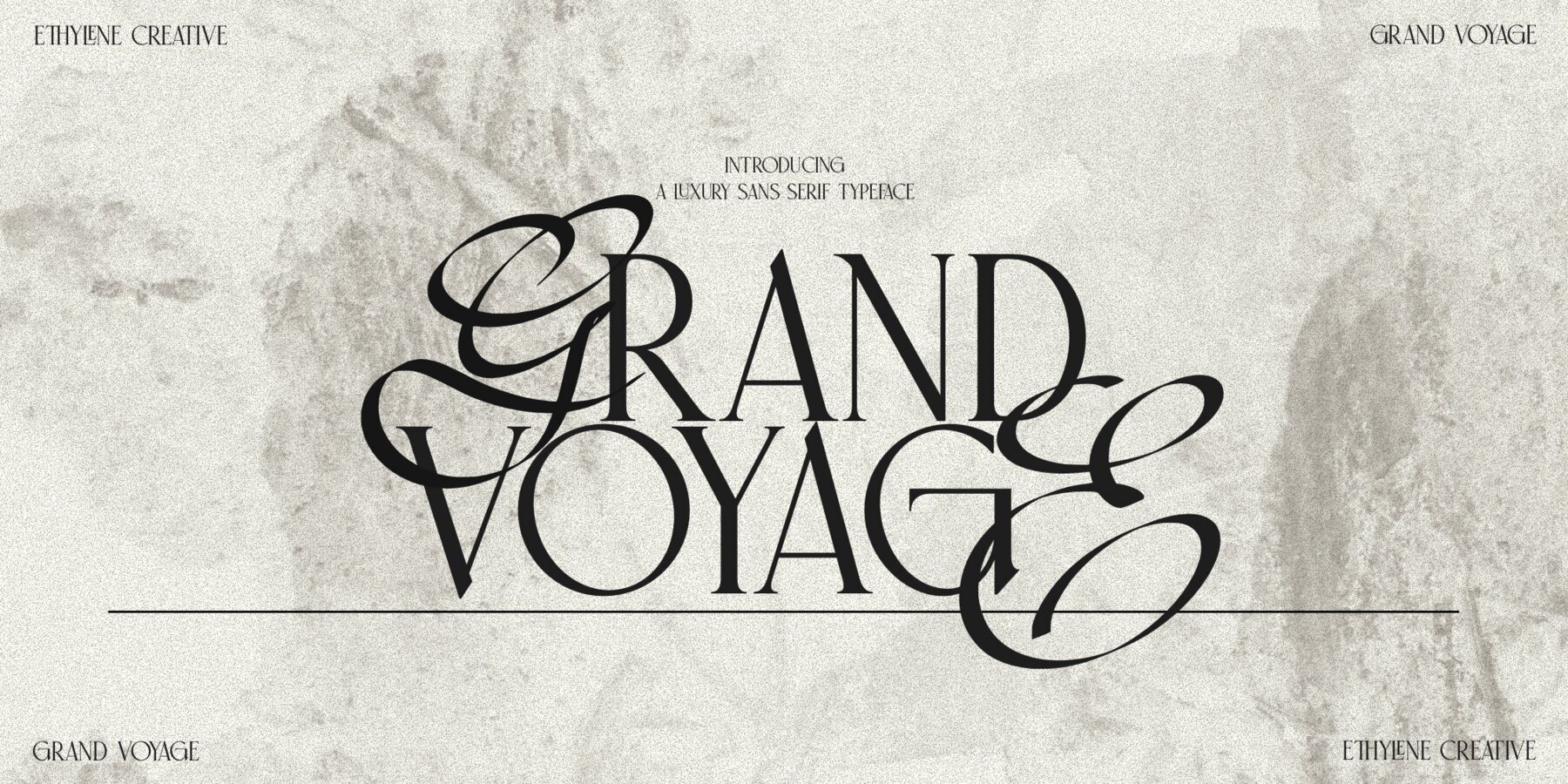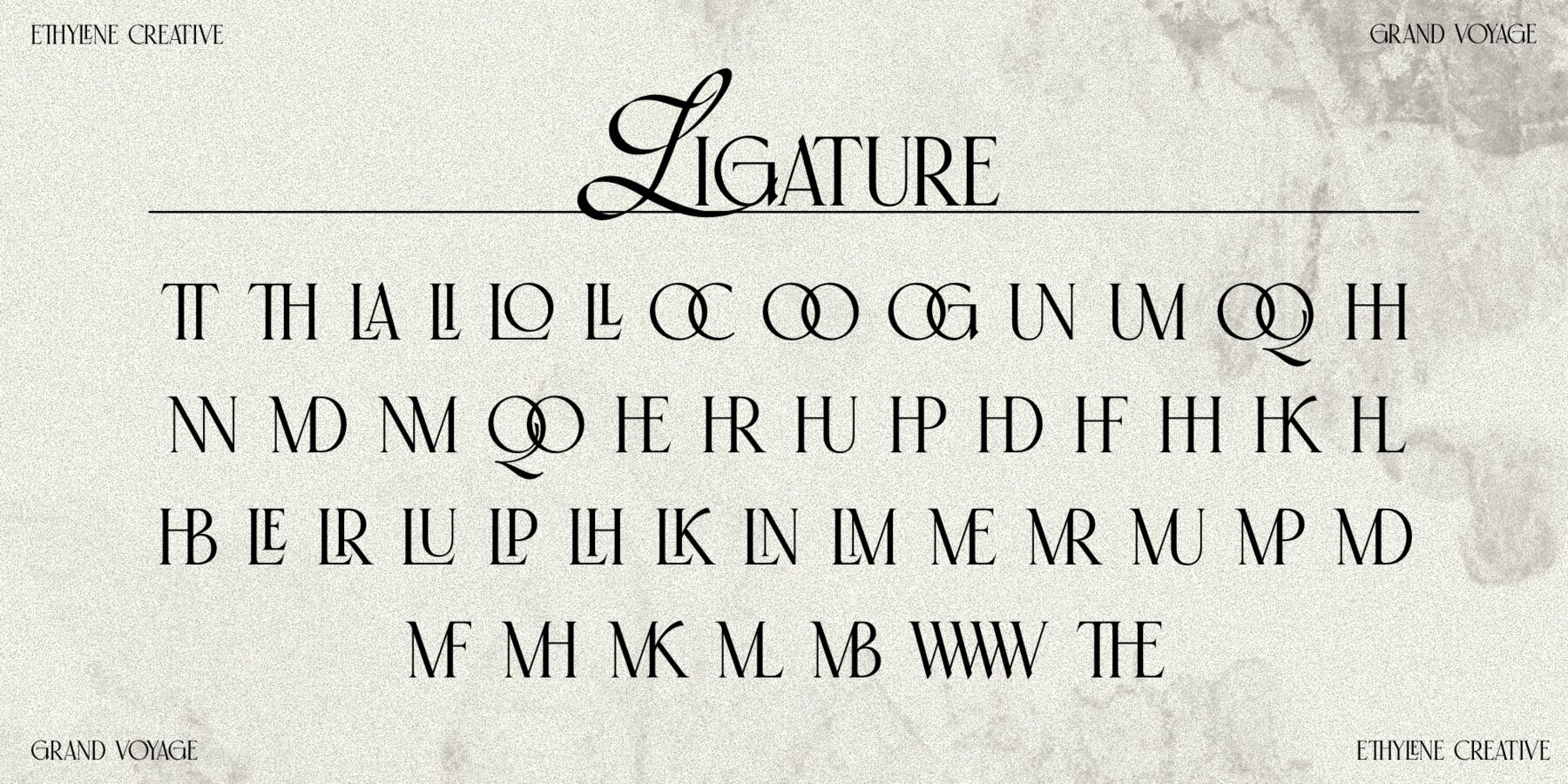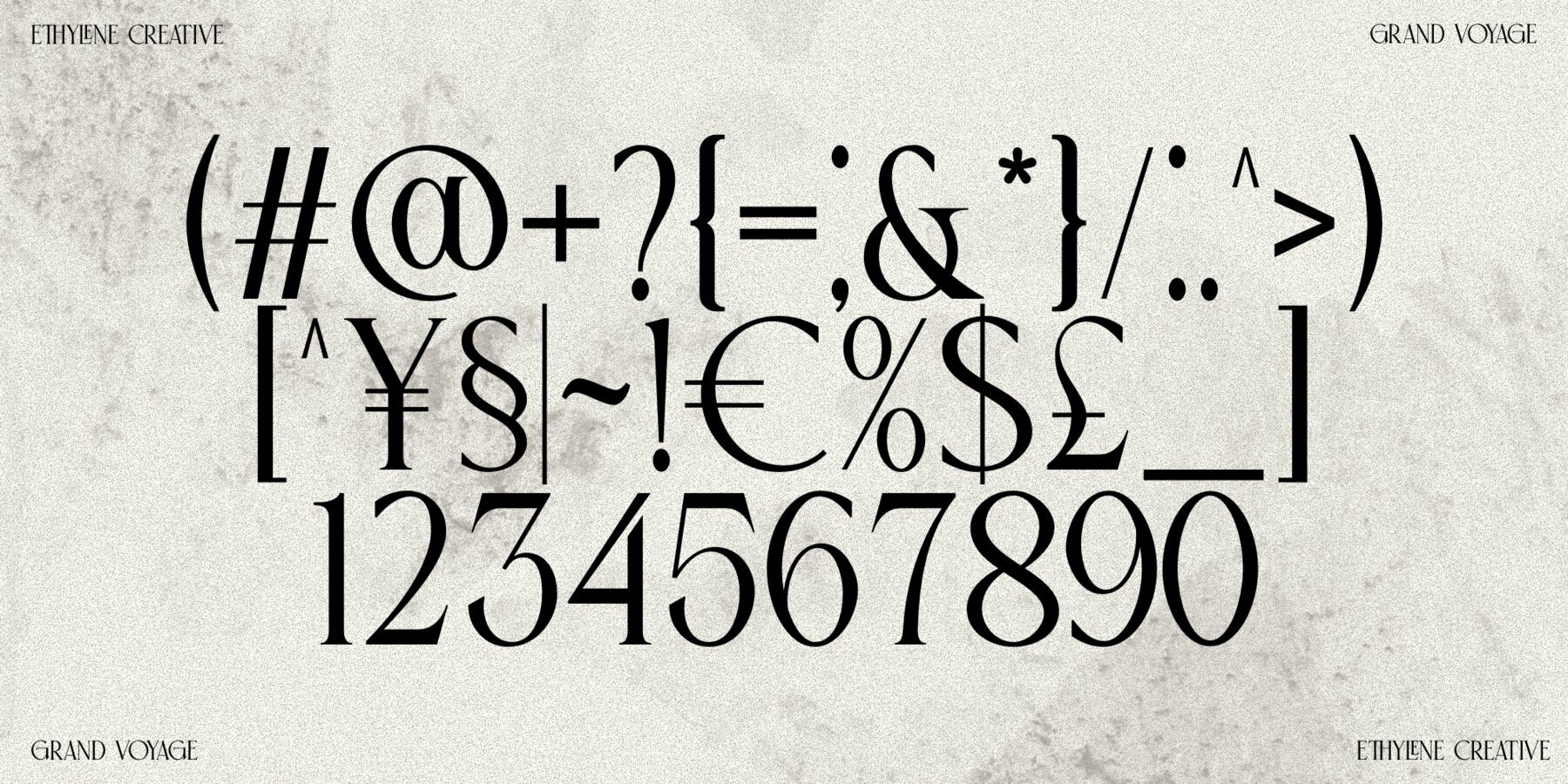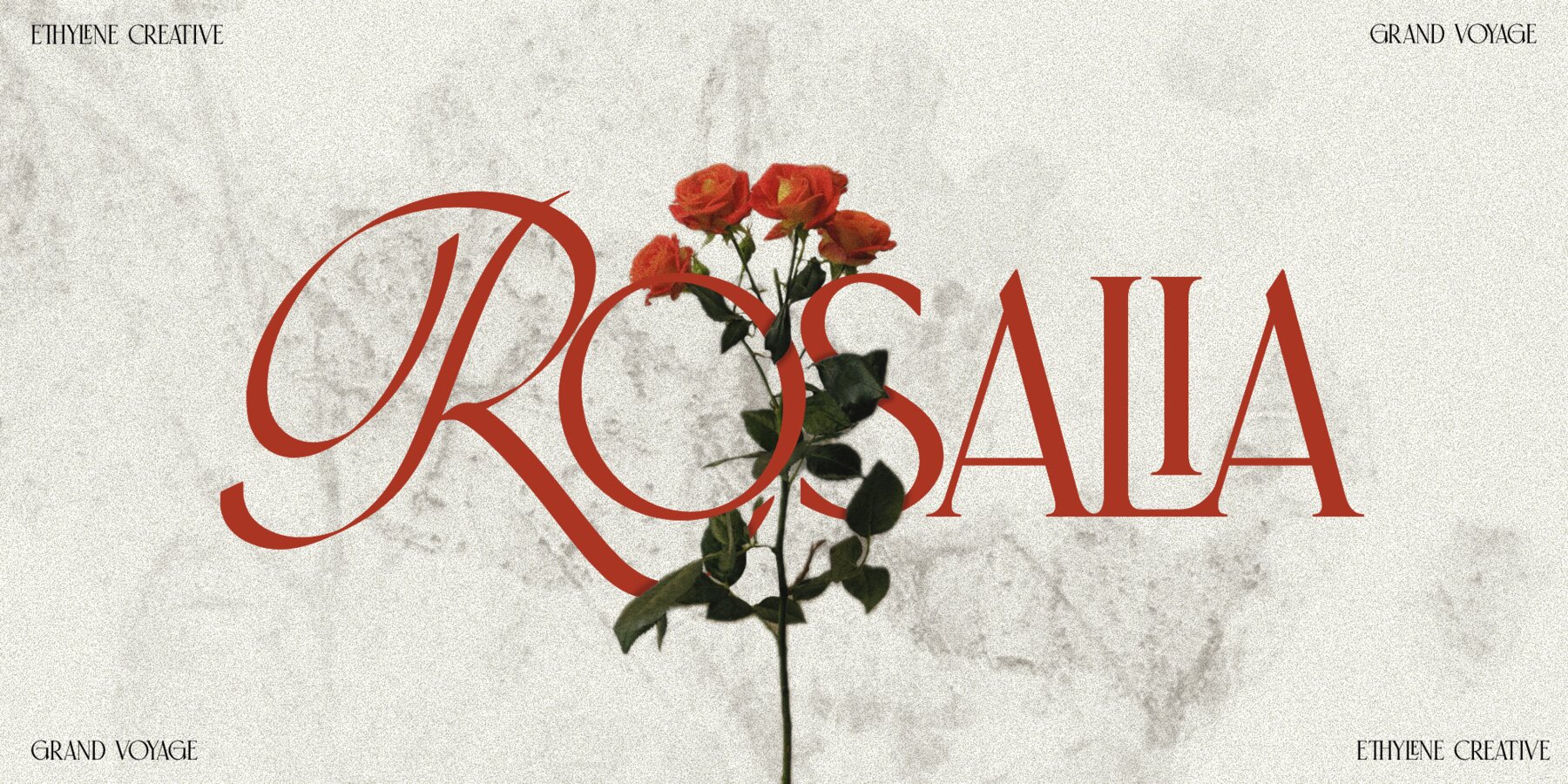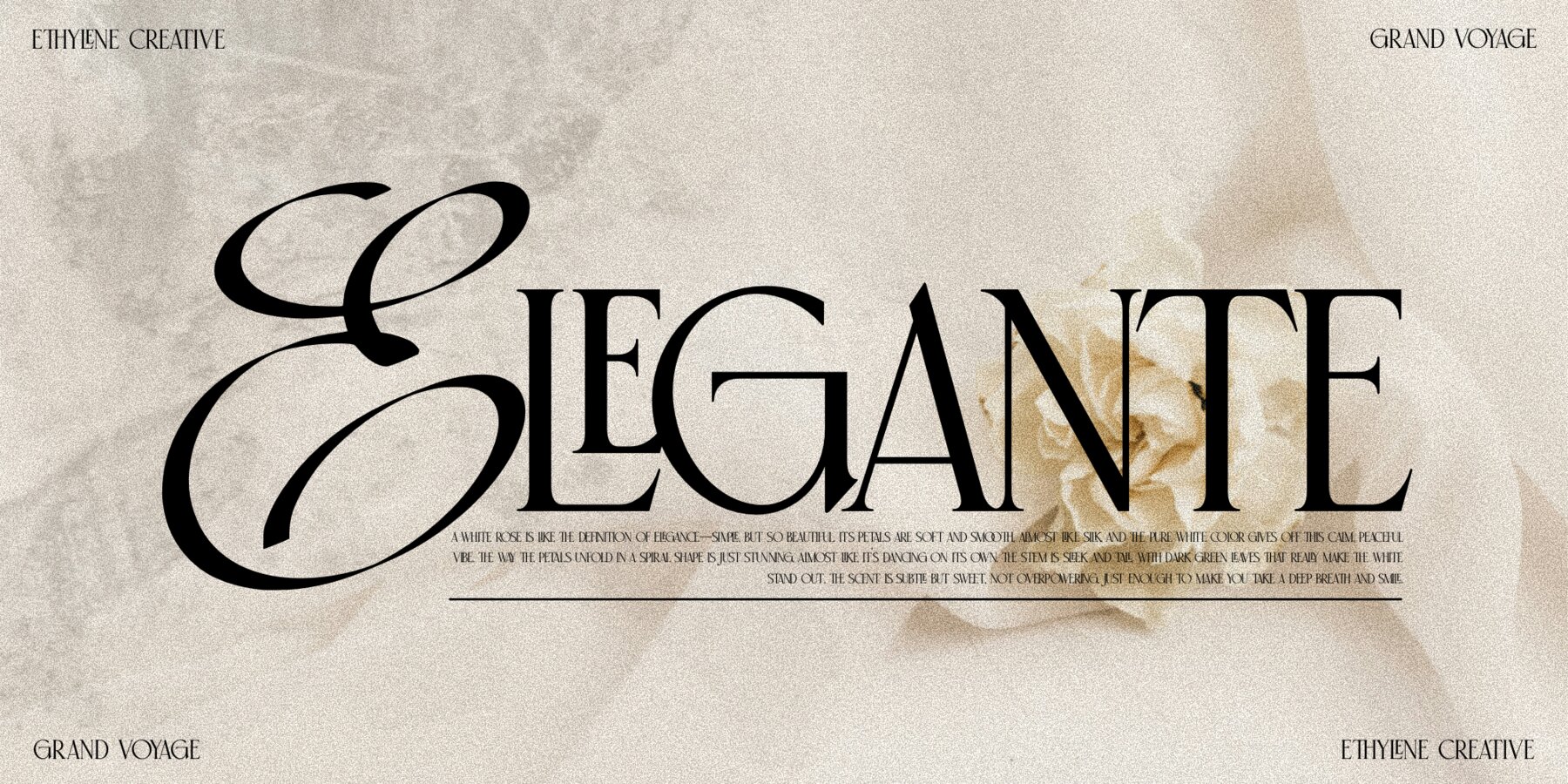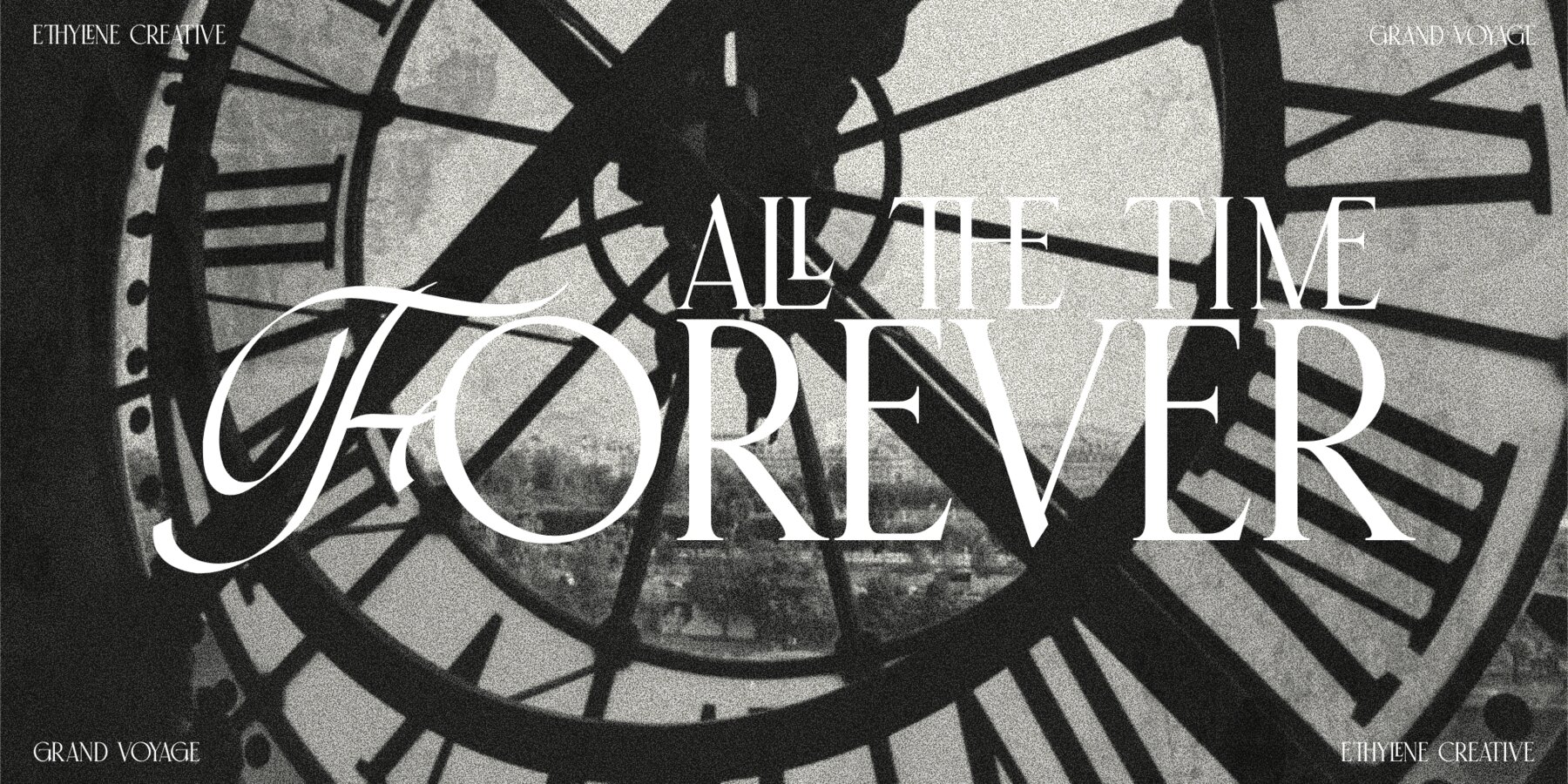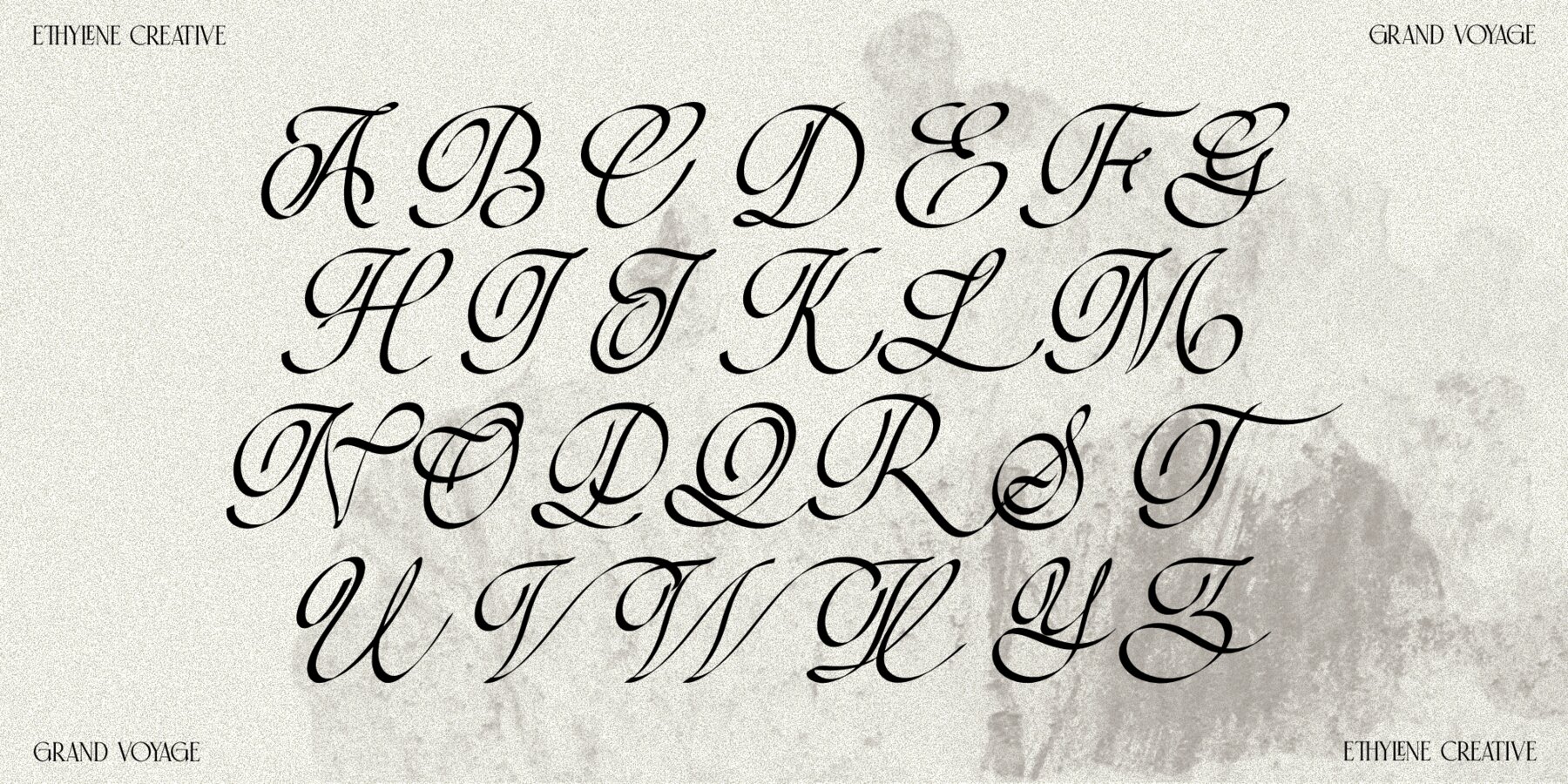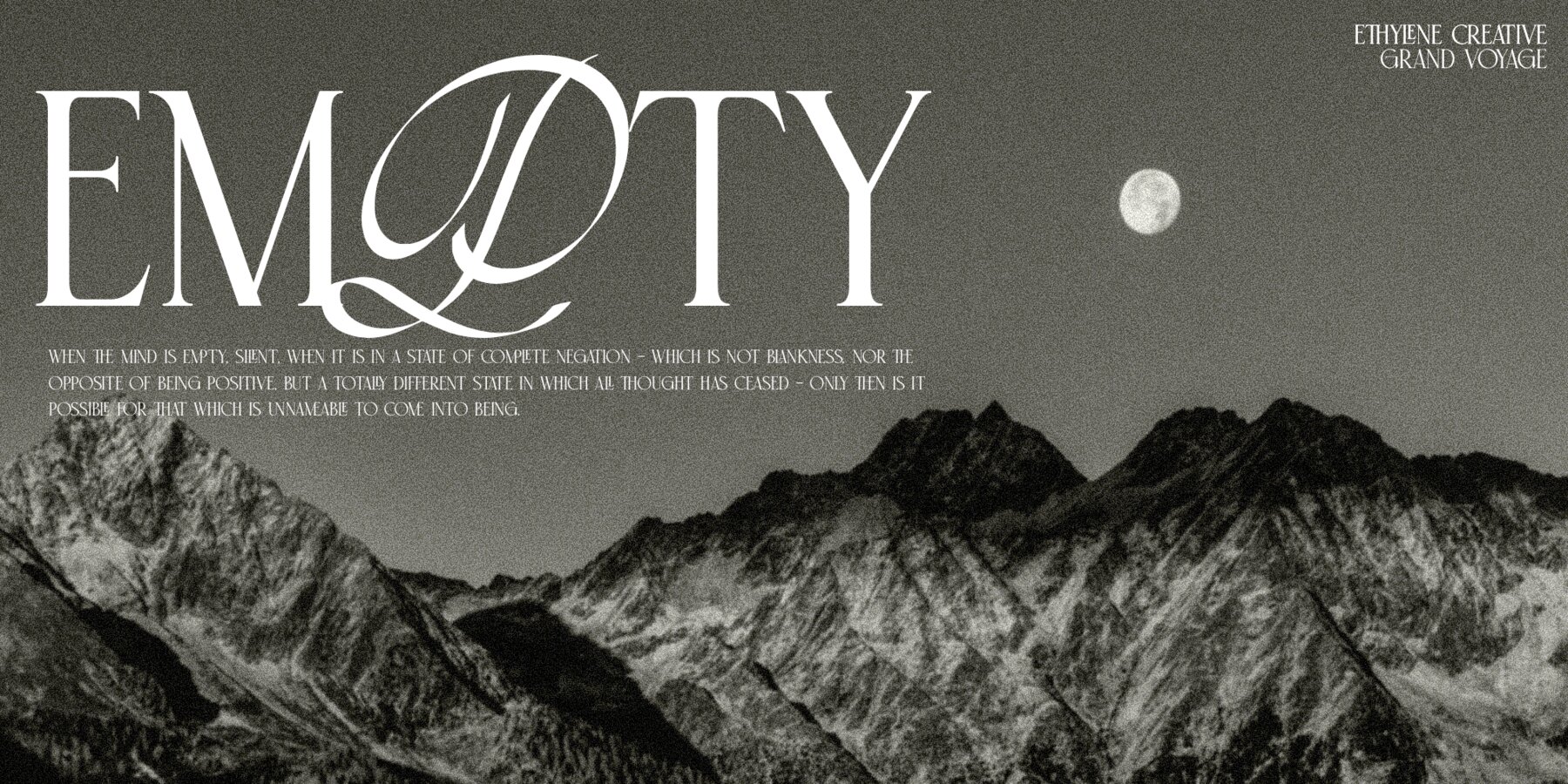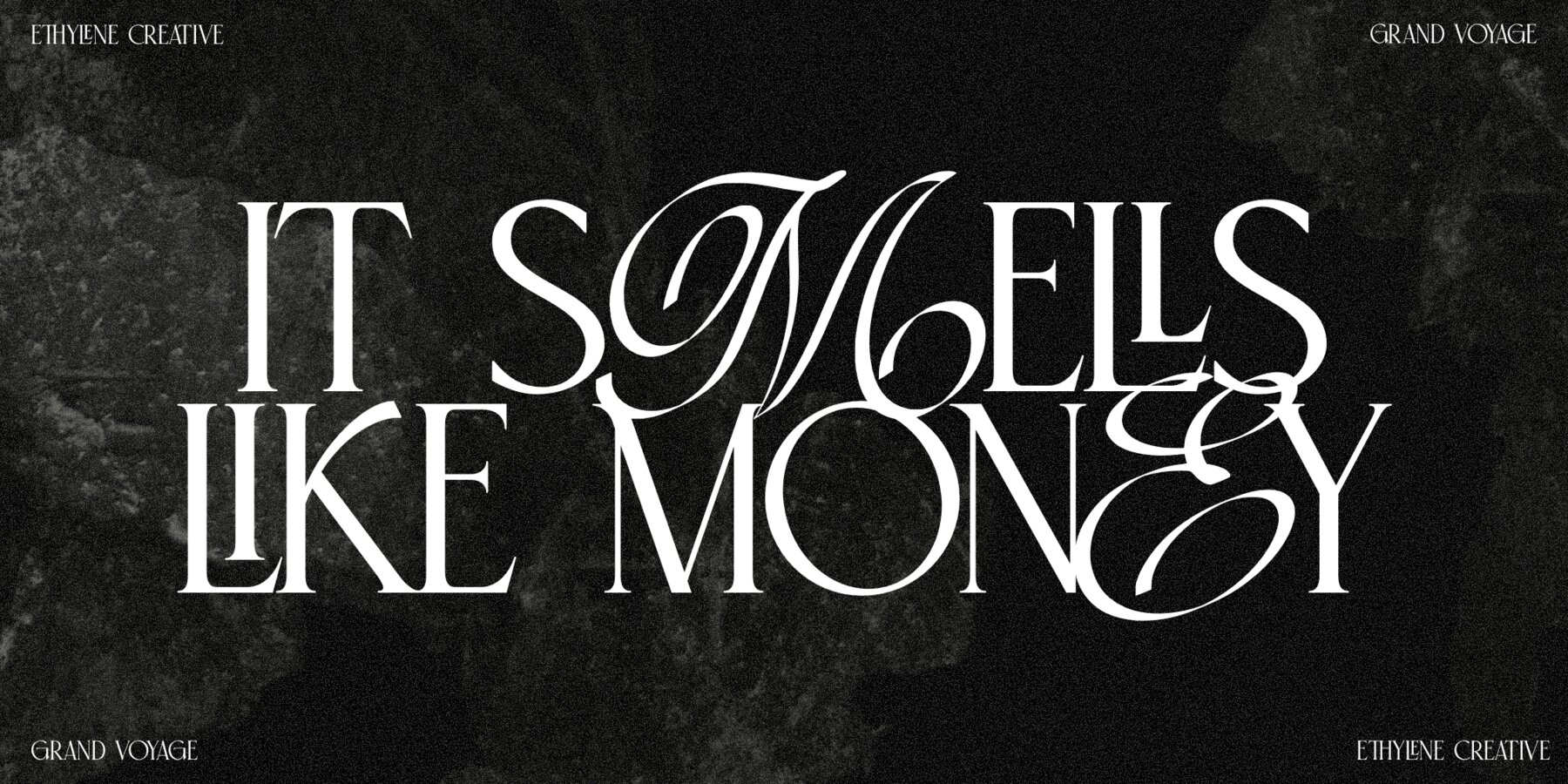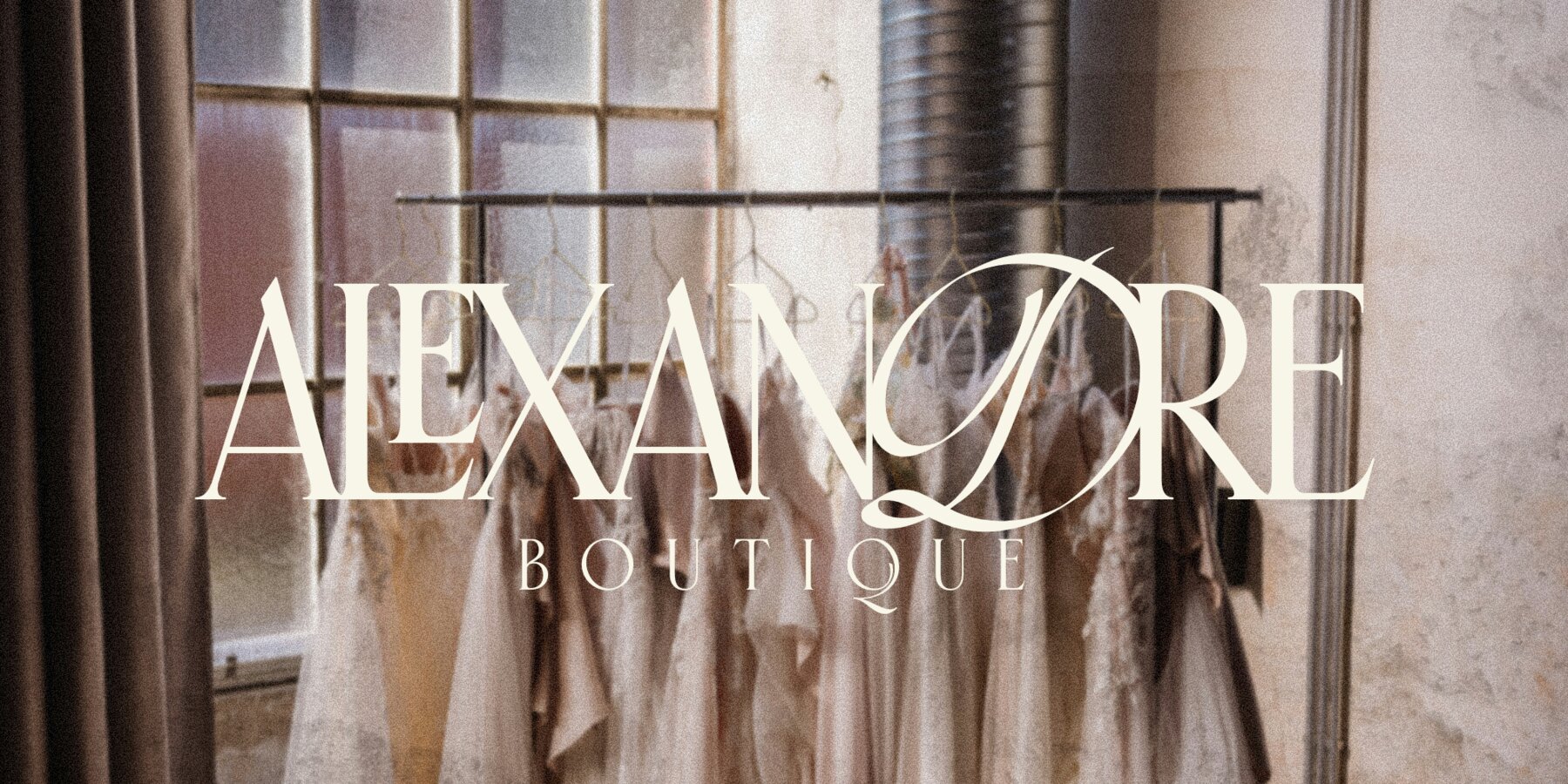
Grand Voyage Font
Grand Voyage
Grand Voyage is a unique fusion typeface that brings together an elegant serif with an artistic handwriting script. This versatile typeface offers two distinct styles in a single package, enhanced with ligature features for added creativity. Perfect for a variety of design applications, Grand Voyage effortlessly adapts to a range of projects, whether crafting posters, designing book and magazine covers, developing packaging, creating merchandise, or enhancing brochures.
This dynamic display typeface is ideal for adding a distinctive street art flair to any design concept. It proves particularly effective for digital projects such as YouTube thumbnails, social media posts, and even streetwear branding. With its blend of sophistication and modern edge, Grand Voyage offers a fresh, creative touch that elevates your designs across multiple mediums.